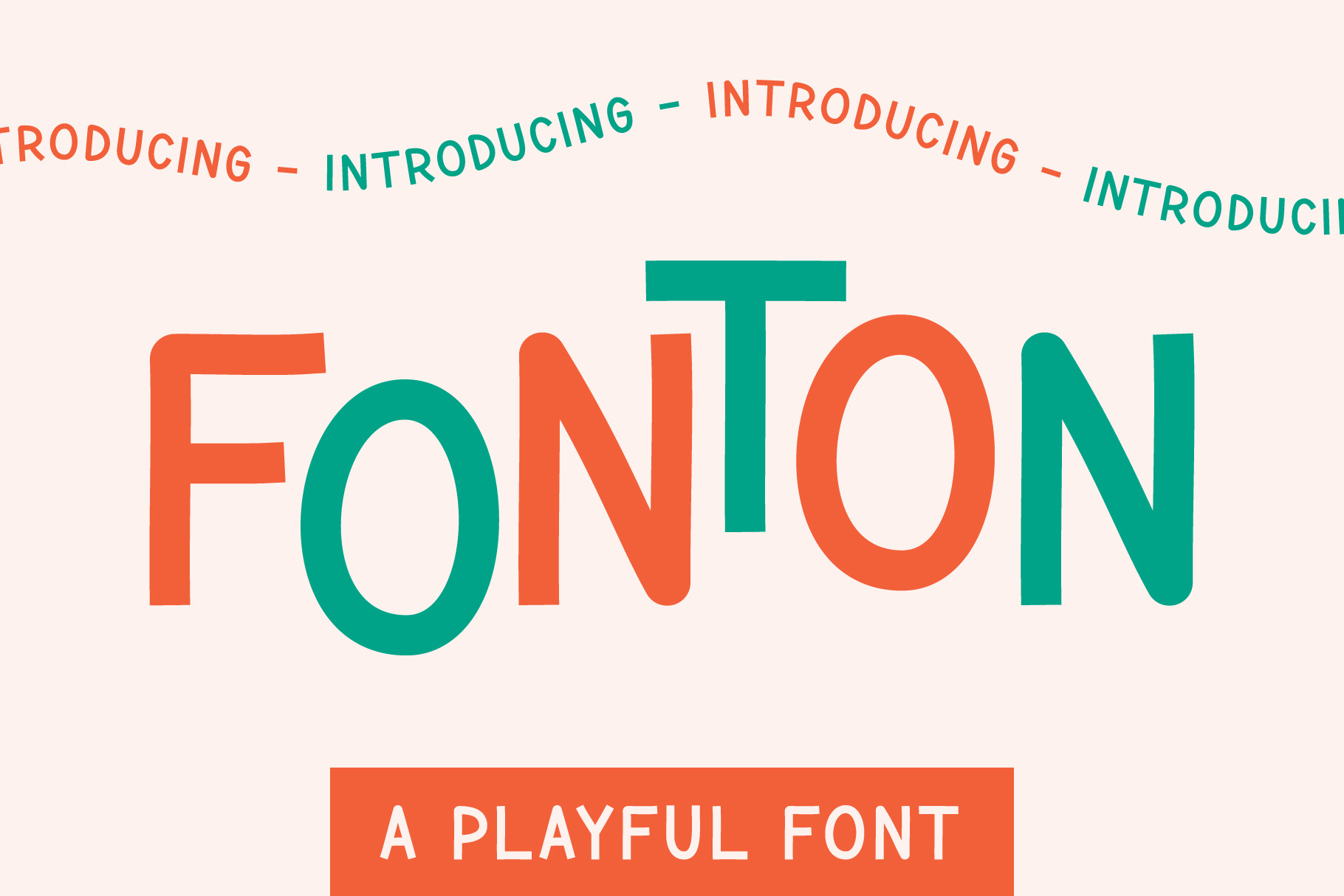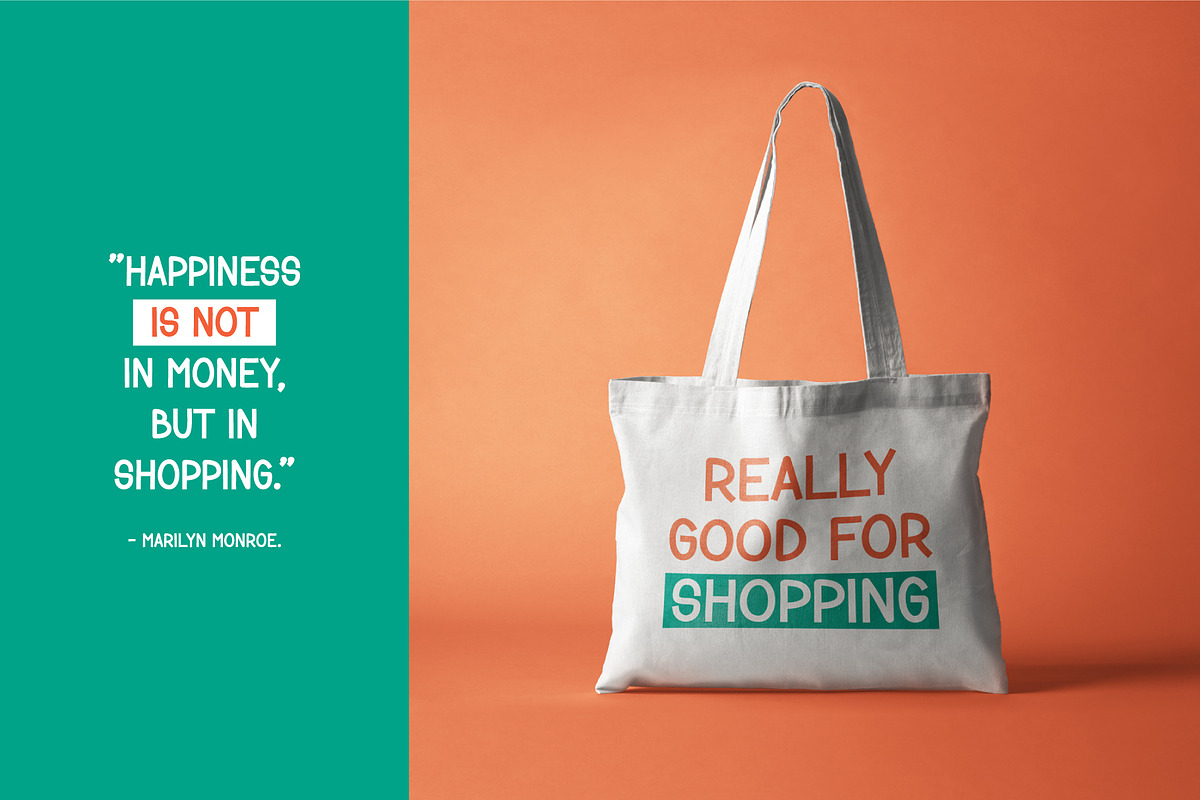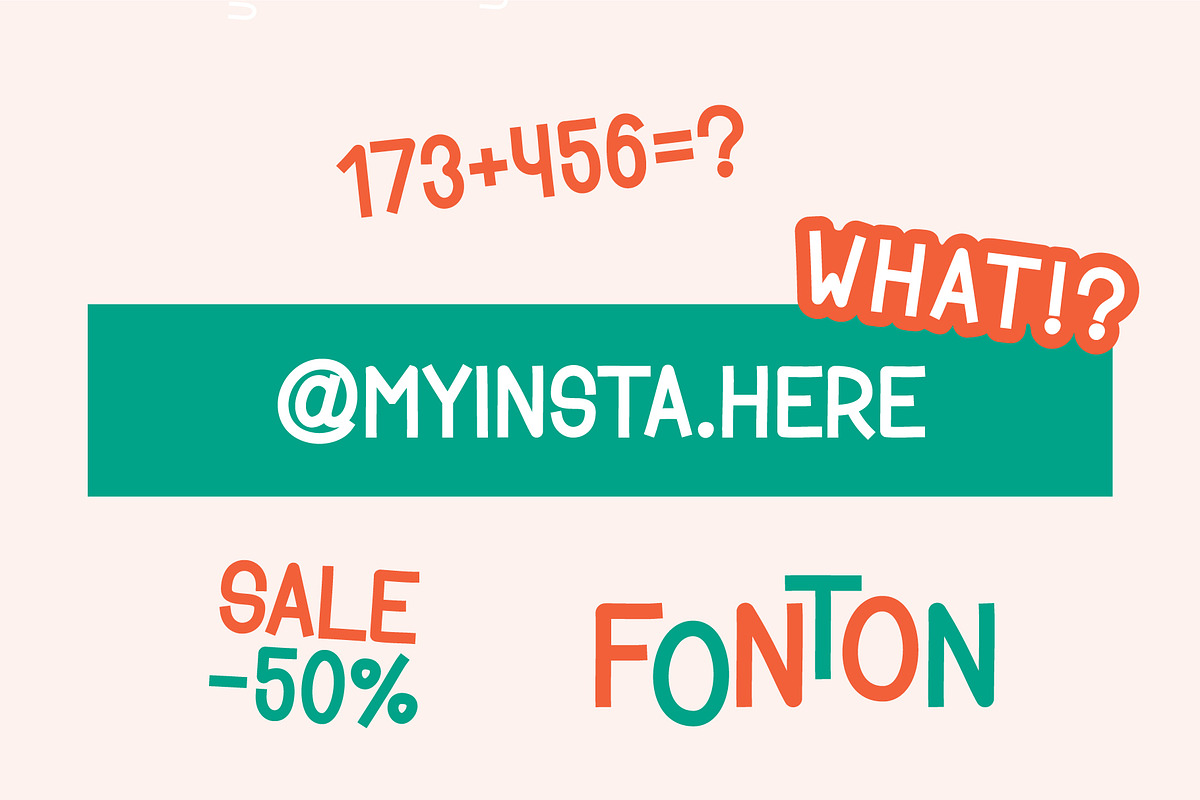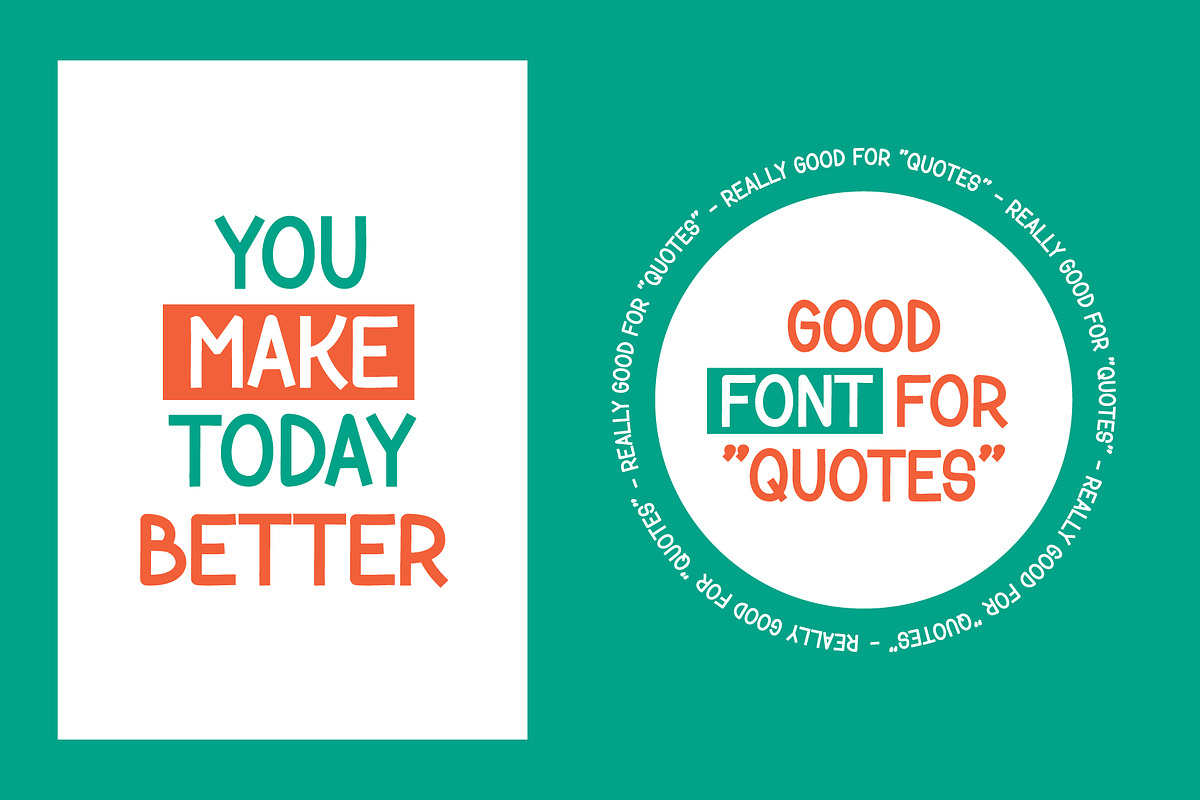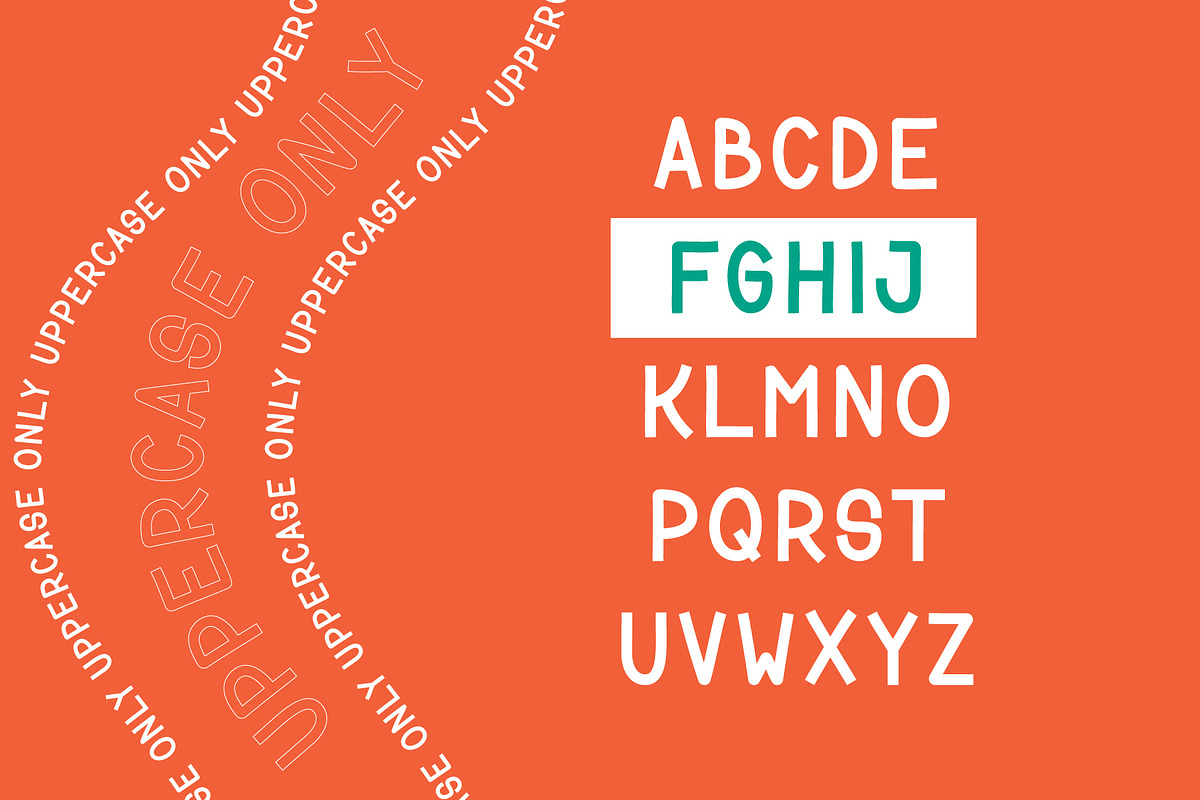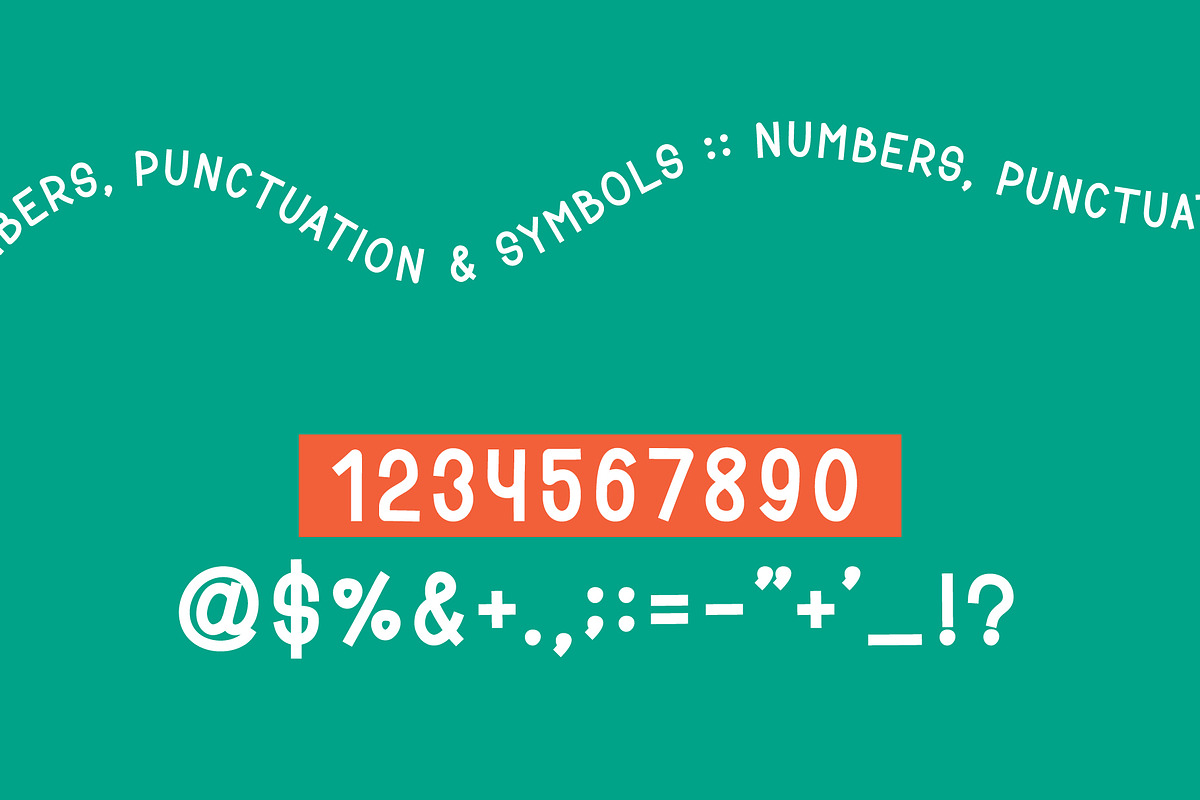
Fonton - Playful Font
Fonton - a super fun and playful hand-lettered bold typeface. It is perfect for headings, printed quotes, flyer, greeting cards, product packaging, book cover, logotype, apparel design, album covers and much more!